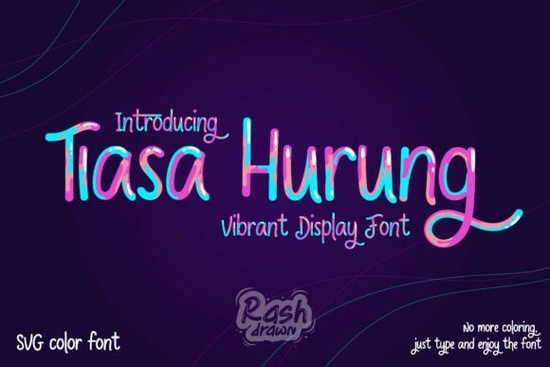
If you are looking to add a quick pop of color to your crafting or print-on-demand projects, the Tiasa Hurung Font is a fantastic option to consider. This vibrant SVG color typeface brings a cheerful, hand-lettered feel to your work without requiring hours of manual coloring. Whether you are designing custom apparel, packaging, or social media graphics, having a reliable, pre-colored display typeface saves time and keeps your workflow smooth.
What makes this color font different from standard typography?
Standard typefaces usually require you to manually apply gradients, shadows, or multiple layers to get a vibrant look. This specific neon-inspired typeface comes pre-colored with lively strokes right out of the box. Because it is an SVG color font, the colors are built directly into the vector paths. This means you get a consistent, handcrafted appearance every time you type a word. The playful, slightly irregular letterforms mimic real brush and marker strokes, giving your text an authentic, approachable vibe that feels much more personal than rigid digital fonts. For small business owners, this ready-to-use format means you can spend less time tweaking design elements and more time fulfilling orders.
Which projects work best with bright, hand-lettered styles?
Because of its energetic and fun personality, this typeface shines in projects aimed at capturing attention quickly. It is especially effective for:
- Children’s products: Perfect for baby shower invitations, kids' clothing tags, and educational materials where a friendly tone is essential.
- Stickers and decals: The bold, colorful outlines make designs stand out beautifully on physical products and laptop covers.
- Social media graphics: Grabs the scroll when used for short, punchy quotes, sale announcements, or podcast cover art.
- Packaging and branding: Adds a welcoming, artisanal touch to small business logos, product labels, and thank you cards.
- Mind the background: Since the strokes are bright and neon, pair them with dark or contrasting solid backgrounds to make the colors truly pop.
- Keep text short: Highly decorative, colorful lettering is best used for headlines, logos, or short phrases rather than long, readable paragraphs.